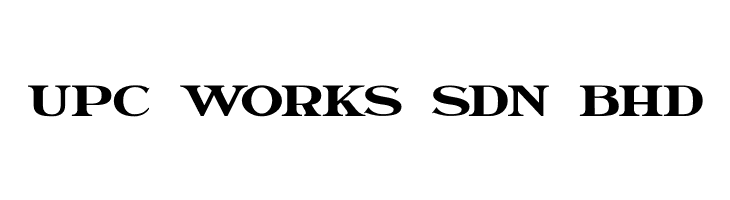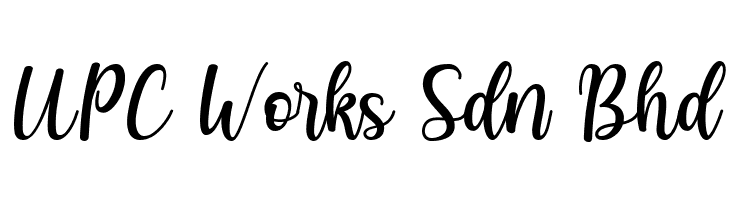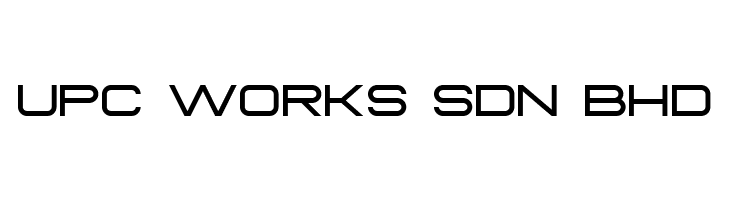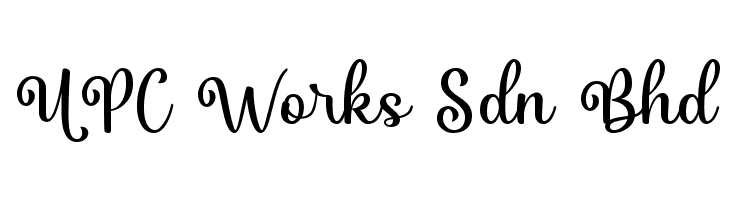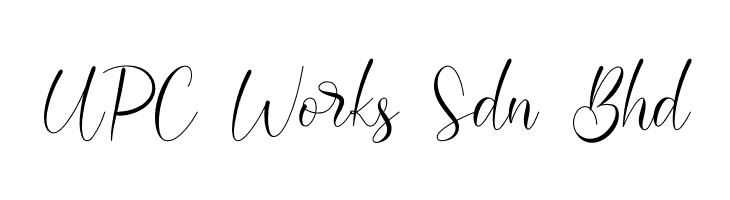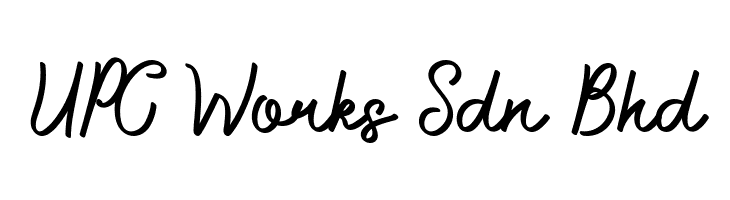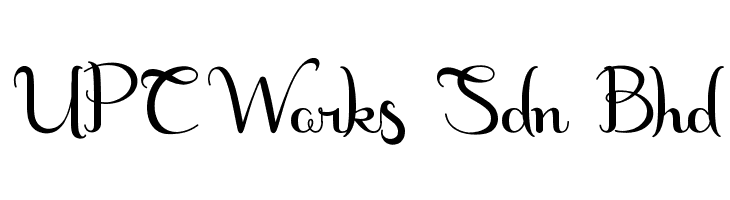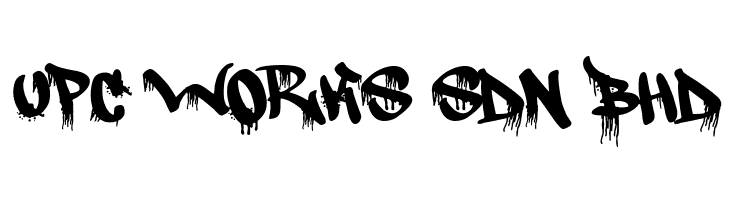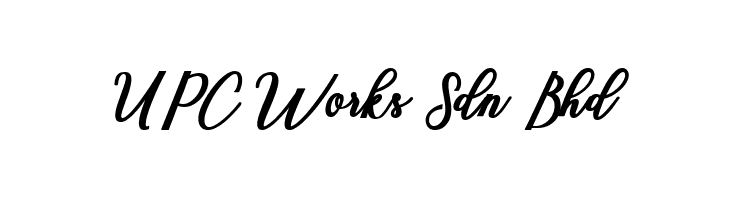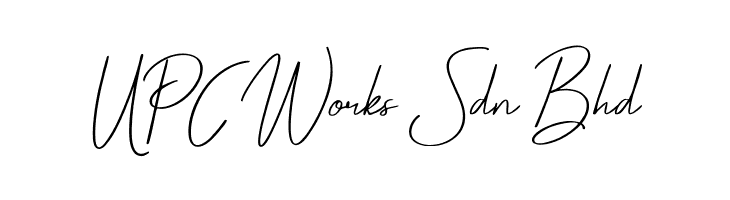
A lively, flowing script font with elegant, connected strokes.
A bold serif font with thick strokes and sharp serifs, offering a modern twist on classic design.
A flowing, cursive font with elegant curves and playful flourishes.
A modern, geometric font with angular lines and a futuristic style.
A playful and elegant script font with decorative flourishes and medium contrast.
An elegant script font with intricate, flowing lines and a classic calligraphic style.
A graceful and elegant script font with flowing, connected strokes.
A lively and dynamic handwritten font with fluid, cursive letterforms.
An elegant and flowing script font with graceful curves and loops.
A bold, expressive handwritten font with dynamic and fluid letterforms.
A bold, graffiti-inspired font with drips and splatters for an edgy, urban look.
A flowing, cursive script font with elegant, connected strokes.
A delicate, handwritten font with a fluid and elegant style.
A graceful script font with a natural handwritten style.
A playful and elegant script font with flowing, cursive design.
A sophisticated script font with elegant, flowing cursive letterforms.
A flowing, elegant script font with dynamic, cursive strokes.
A lively and expressive script font with flowing, cursive letterforms.
A bold, handwritten font with playful, energetic strokes and unique flourishes.
A flowing, cursive font with elegant loops and smooth connections, perfect for artistic projects.
A flowing, cursive font with elegant loops and smooth transitions.
Ornate blackletter style with sharp, angular forms and high contrast.
Energetic, rough brushstroke display font with chaotic, hand-drawn style.
A bold, geometric font with a futuristic and modern style.
A futuristic, angular font with a sci-fi aesthetic.
A playful, bold script font with a lively, handwritten style.
A bold, artistic font with a modern vintage aesthetic and sharp serifs.
A bold, angular font with a dynamic and geometric style.
A hand-drawn, sketch-style font with a playful and artistic appearance.
A bold, outlined font with a geometric and eye-catching style.